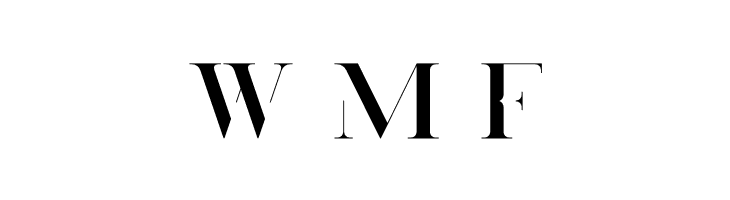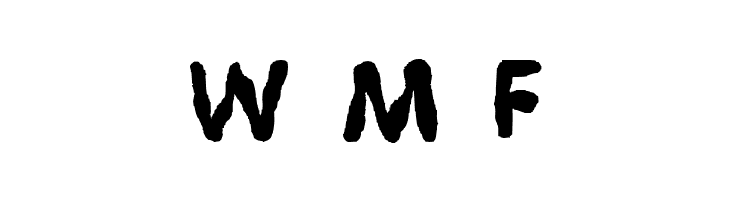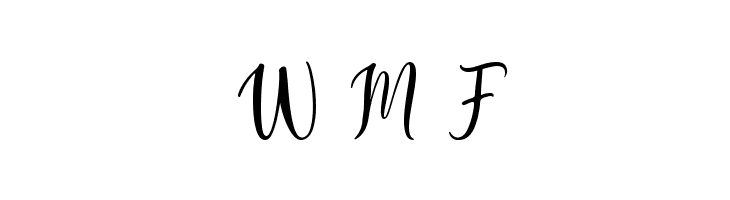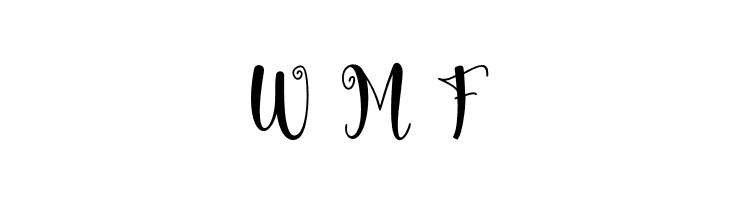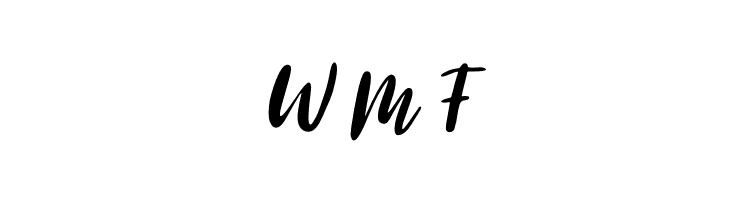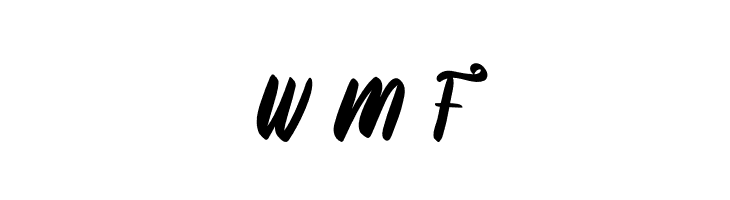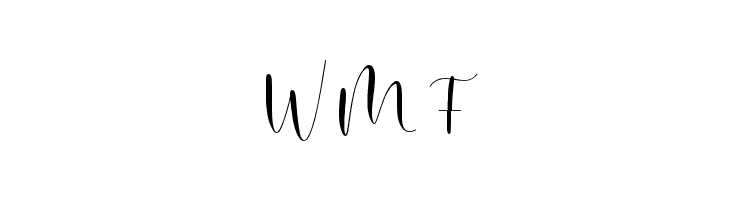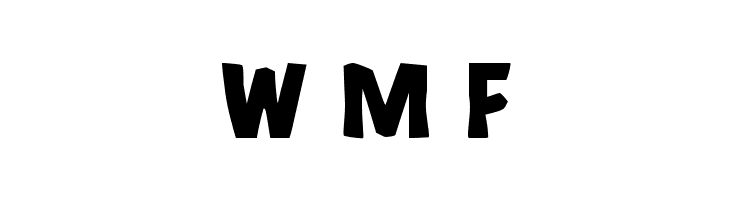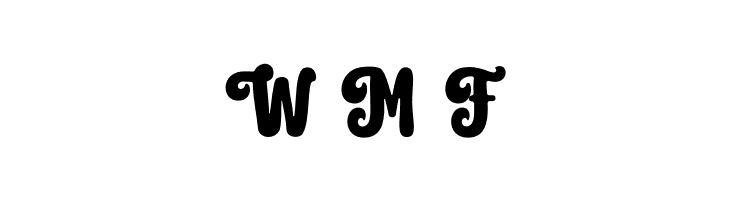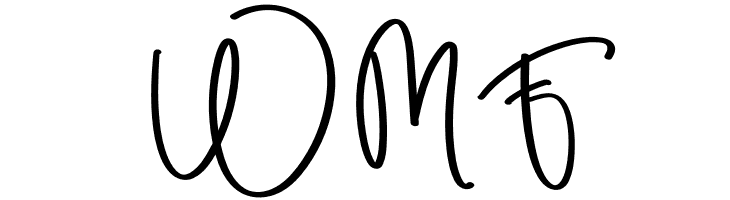
Marriage Moment Personal Use Font
An elegant script font with flowing, cursive letters and a classic style.
proletarian [beta] Font
A bold, geometric font with a modern and clean design.
Momentum Font
A bold, cursive font with dynamic, handwritten strokes.
Cherishing Moments Font
An elegant, flowing script font with smooth, cursive strokes and artistic flair.
Cherish Moment Font
A playful, bold font with rounded edges and a hand-drawn style.
Momentus Font
A bold, high-contrast serif font with sharp, angular serifs and tight spacing.
Melted Moments Font
A playful, hand-drawn font with a melted, organic appearance.
Dehasta Momentos Font
A playful, handwritten font with smooth curves and a casual style.
Dream Moment Font
A playful, bubbly font with rounded characters and whimsical embellishments.
Aesthetic Moment Italic Font
Bold italic serif font with high contrast.
Gatty Extra Bold Font
A bold, modern font with strong geometric shapes and thick strokes.
Feeding a Moment Font
A bold, geometric font with clean lines and uniform stroke widths, perfect for impactful statements.
Dehasta Momentos Italic Font
A smooth, flowing script font with an elegant italic style.
Wonderful moment Regular Font
A playful, handwritten font with bold, dynamic strokes.